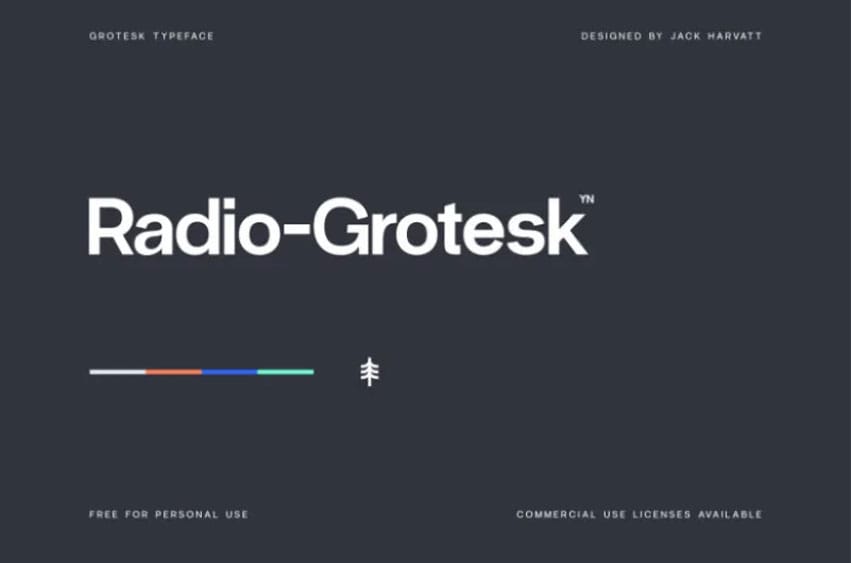
Radio Grotesk Font Family. With its well-known majuscules style and elegant miniatures this font gives modernity to a classic typeface design.
Radio Grotesk Font’s three weights can be applied to any project easily, and its three styles with 340 glyphs each are able to support languages from across North America and most of Europe.